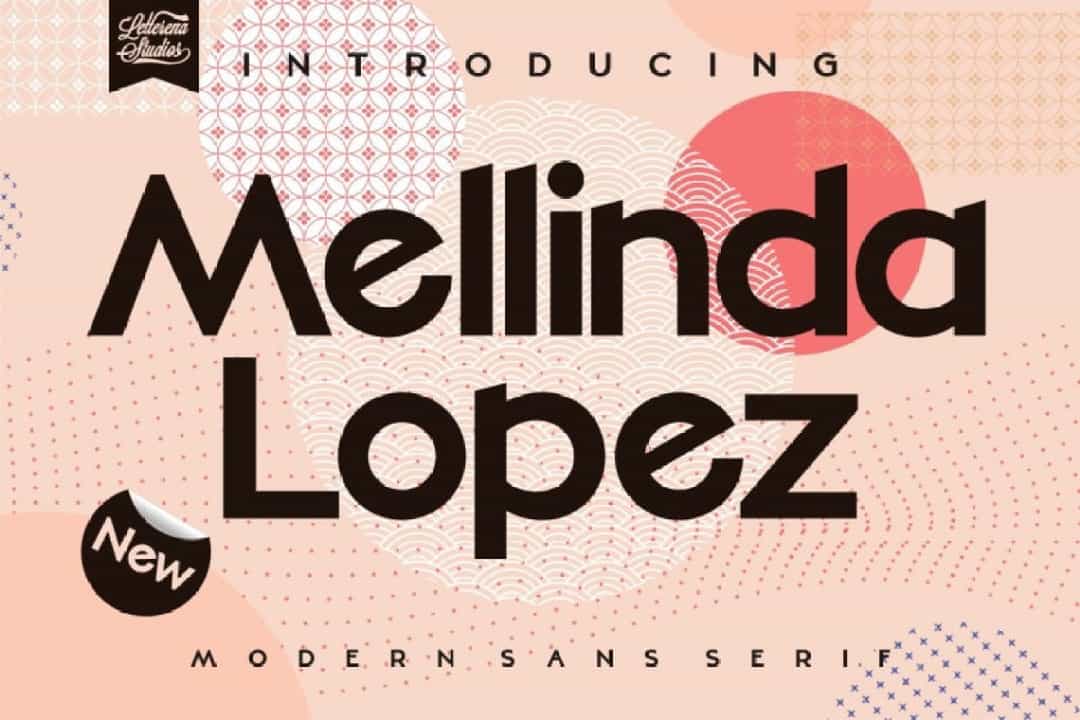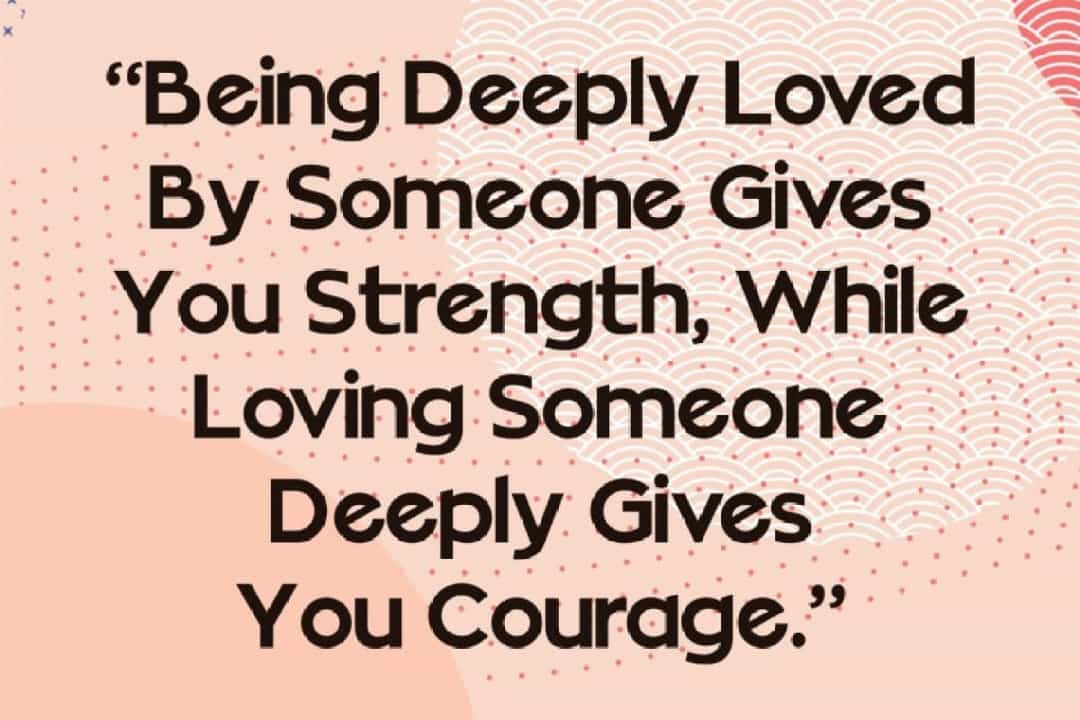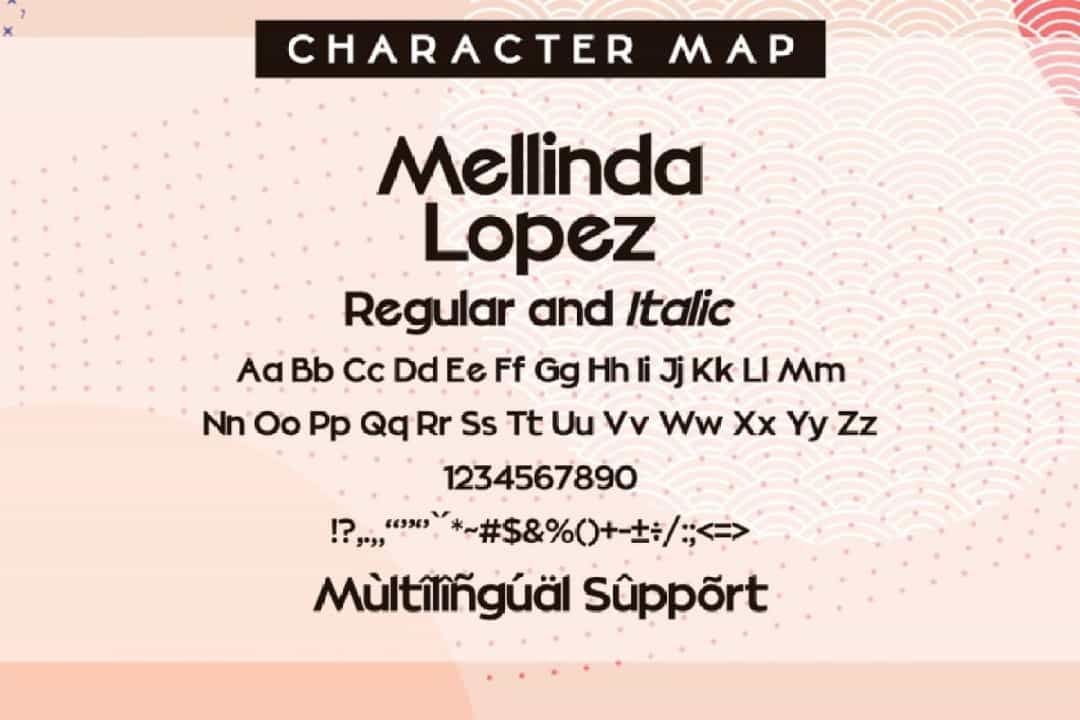
Mellinda Lopez is a sophisticated but versatile sans-serif typeface suitable for logos and branding, packaging for goods, posters, quotes, and shopping bags. T-shirts, card covers, greeting cards, labels, watermarks, photography, special events, photography projects that require beautiful finishes can all benefit from using Mellinda Lopez for their projects.